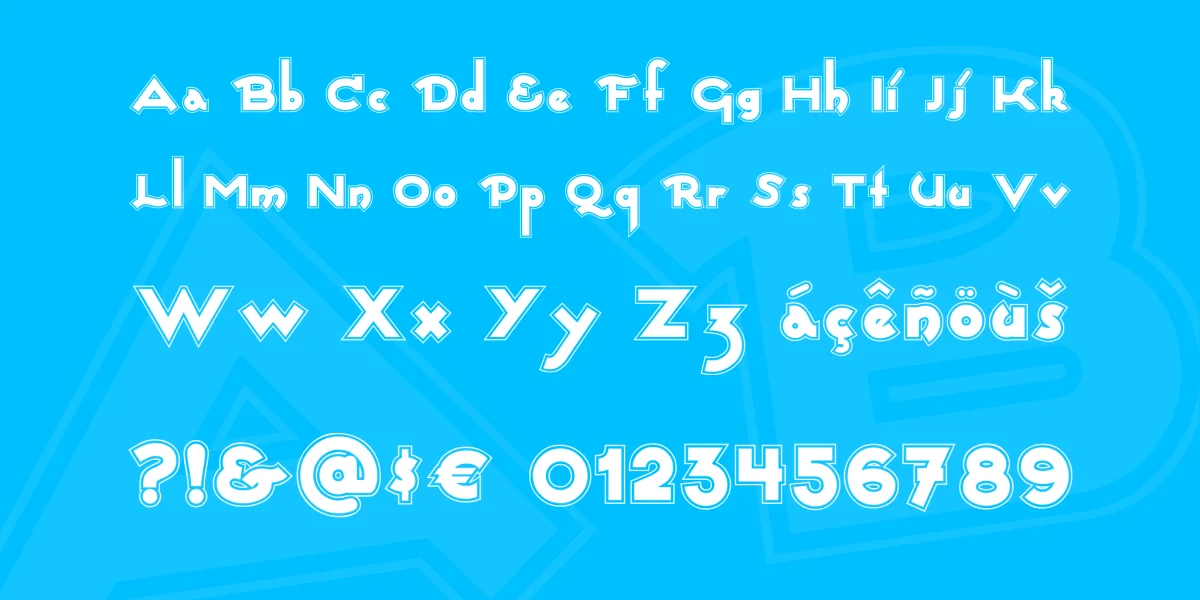
Here’s a really fun font, based on an untitled alphabet designed by German typemeister Otto Heim in 1925. The playful characters reminded me of 30’s cartoons, so I named the font after the host of an afternoon kids’ program that aired on local television in Dallas back in the 50’s (have we covered enough decades?).